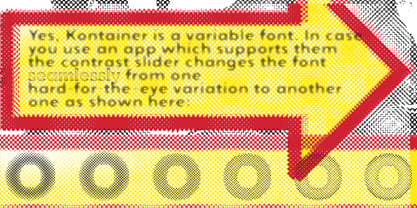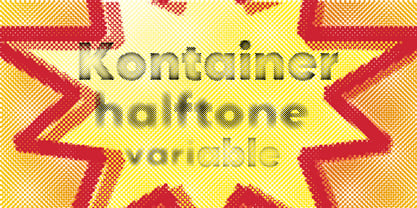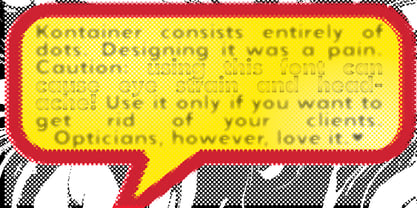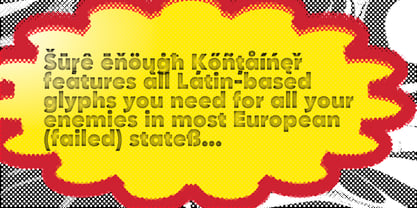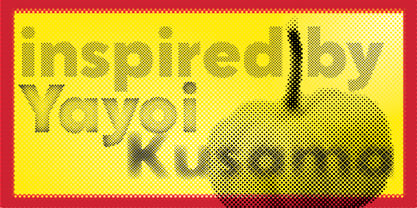
Kontainer
Die Schriftfamilie Kontainer wurde von Werner Eschmann entworfen und von Fontroll veröffentlicht. Kontainer enthält 3 Stile und Familienpaketoptionen. Mehr über diese Familie
Kontainer is a unique sans-serif typeface composed entirely of dots. It offers two distinct styles, with a variable font that allows for seamless transitions between the two variations. This feature caused us some headache, as each dot has to align with its counterpart in the alternate font. Kontainer includes the complete Latin-based European character set, old style figures, upper and lower case numbers, and several ligatures.